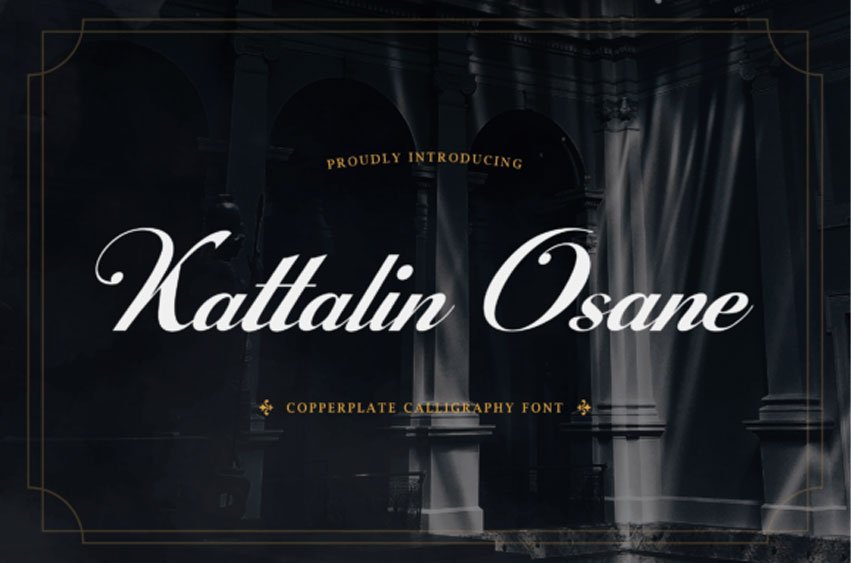
Kattalin Osane Font is a copperplate-inspired calligraphy typeface featuring high contrast strokes, flowing connections, and elegant swash details. Designed with formal script structure, this typeface includes uppercase and lowercase letters, numerals, punctuation, stylistic alternates, ligatures, and multilingual support.
The letterforms follow a traditional calligraphic rhythm with refined curves and extended entry and exit strokes, making it suitable for wedding invitations, branding projects, editorial headlines, packaging design, and sophisticated display compositions.
Kattalin Osane maintains clarity while preserving the expressive movement characteristic of copperplate script, allowing it to perform well in both large headlines and refined identity applications.